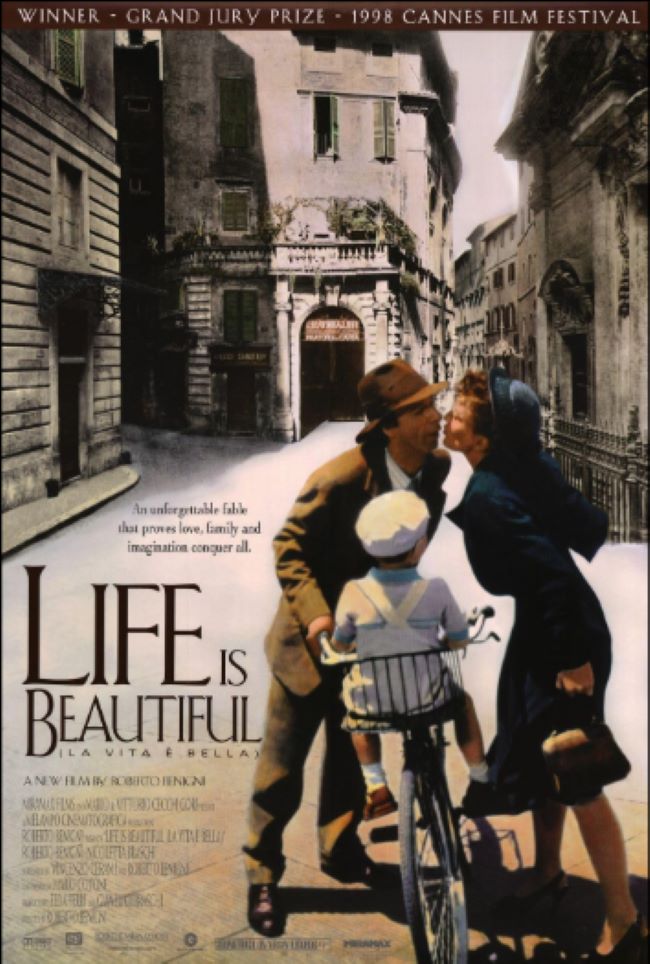
The Life Is Beautiful Font captures the gentle, heartfelt spirit of Roberto Benigni’s 1997 masterpiece Life Is Beautiful. Just like the film, which blends humor, love, and sorrow into a poignant tale, this typeface radiates warmth, charm, and timeless elegance, making it perfect for projects that aim to evoke emotion and cinematic beauty.
The lettering of the movie’s title is closely mirrored by Palatino Linotype, a classic serif designed by Hermann Zapf. Its graceful curves and refined lines give a sense of sophistication while remaining approachable—qualities that echo the film’s balance of joy and melancholy. Fans and designers often use this font for posters, invitations, or creative works seeking that same emotional resonance.
While no official font was released, Palatino Linotype remains the closest match. For a free alternative, Cormorant Garamond offers a similar elegance. The enduring popularity of the Life Is Beautiful font demonstrates how typography can reflect a story’s soul, just like the film continues to inspire audiences with its tender, hopeful narrative.